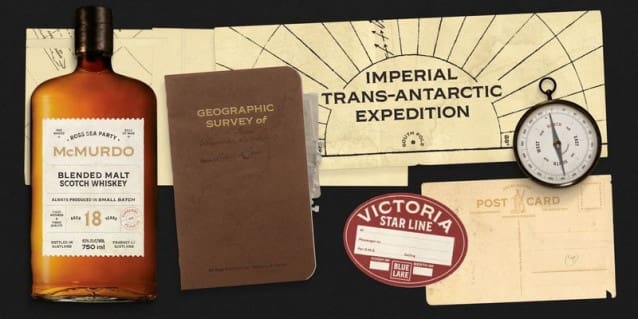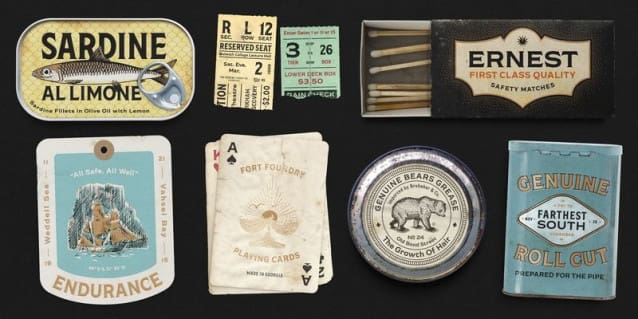
Shackleton Font Family
Shackleton Font Family an inspired by The Coast. Shackleton led his crew of 27 men on an historic trans Antarctic expedition known as Imperial Trans Antarctic Expedition which would become one of the greatest feats ever.
This Font family was named in his honor and designed to embody his indomitable spirit and lifestyle with princely flared serifs featuring Victorian aesthetic elements and gilded fragments yet still endure the challenges associated with an ever- evolving world.